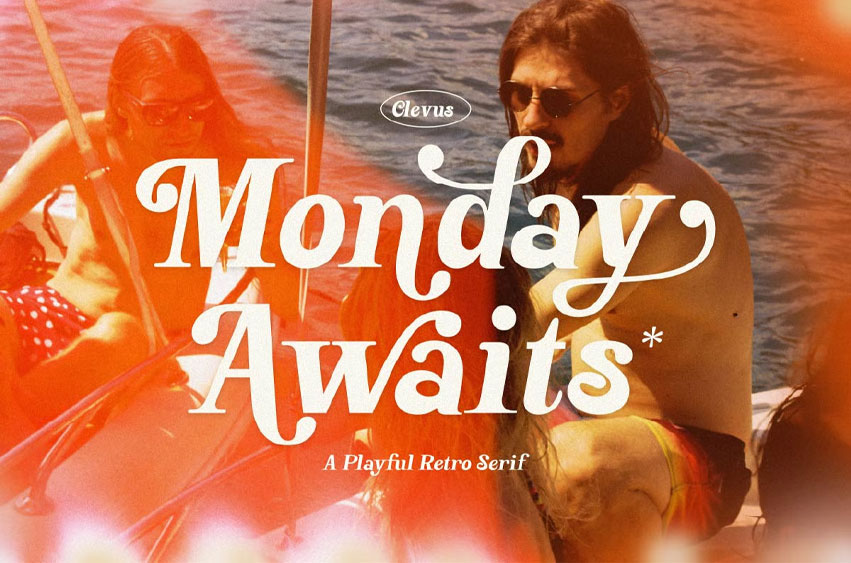
Monday Awaits Font
Monday Awaits Font is a bold and playful vintage serif font that brings a touch of nostalgia to your designs. Designed to elevate your brand, its vintage aesthetic is versatile, making it a great choice for a wide range of projects, from packaging and advertising to editorial design and more.
• Luxury Brands: Create logos and branding that exude sophistication and elegance.
• High-end Products: Design packaging and marketing materials for premium products.
• Event Invitations: Develop stunning invitations for weddings, galas, and exclusive events.
• Upscale Marketing: Elevate your marketing materials with a touch of playful style.
• Letters, numbers, symbols, and punctuation
• 30+ alternates and ligatures